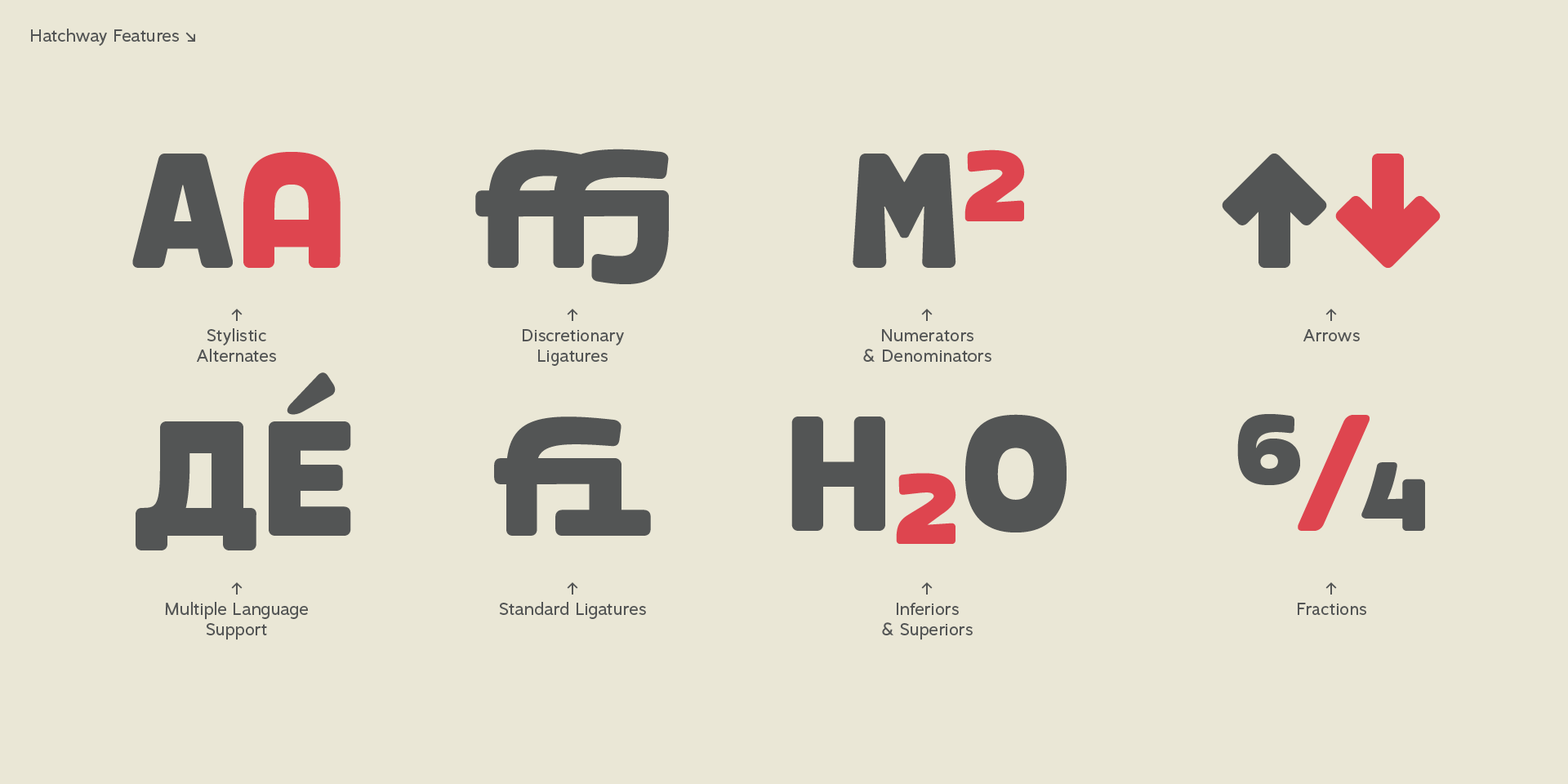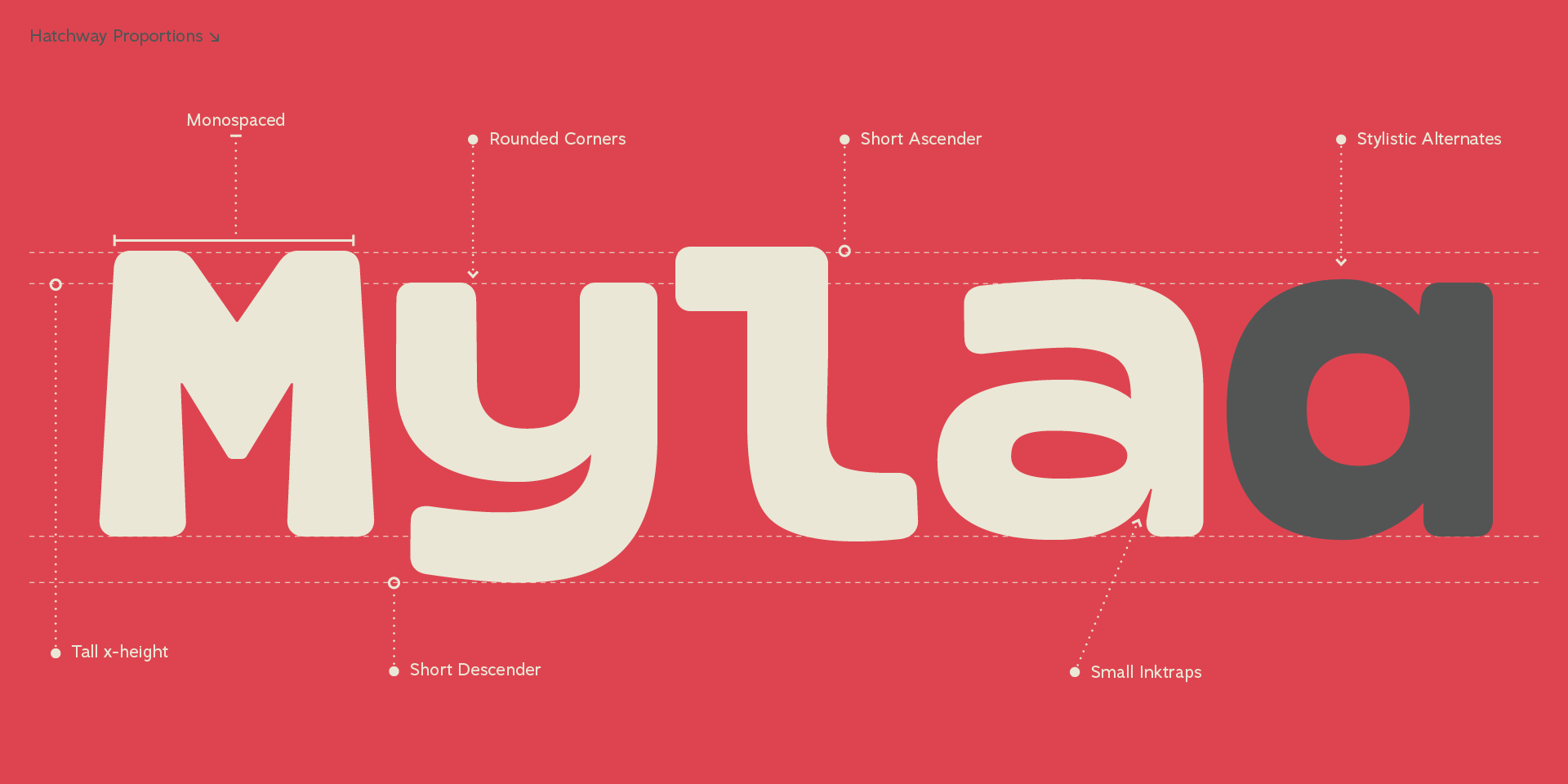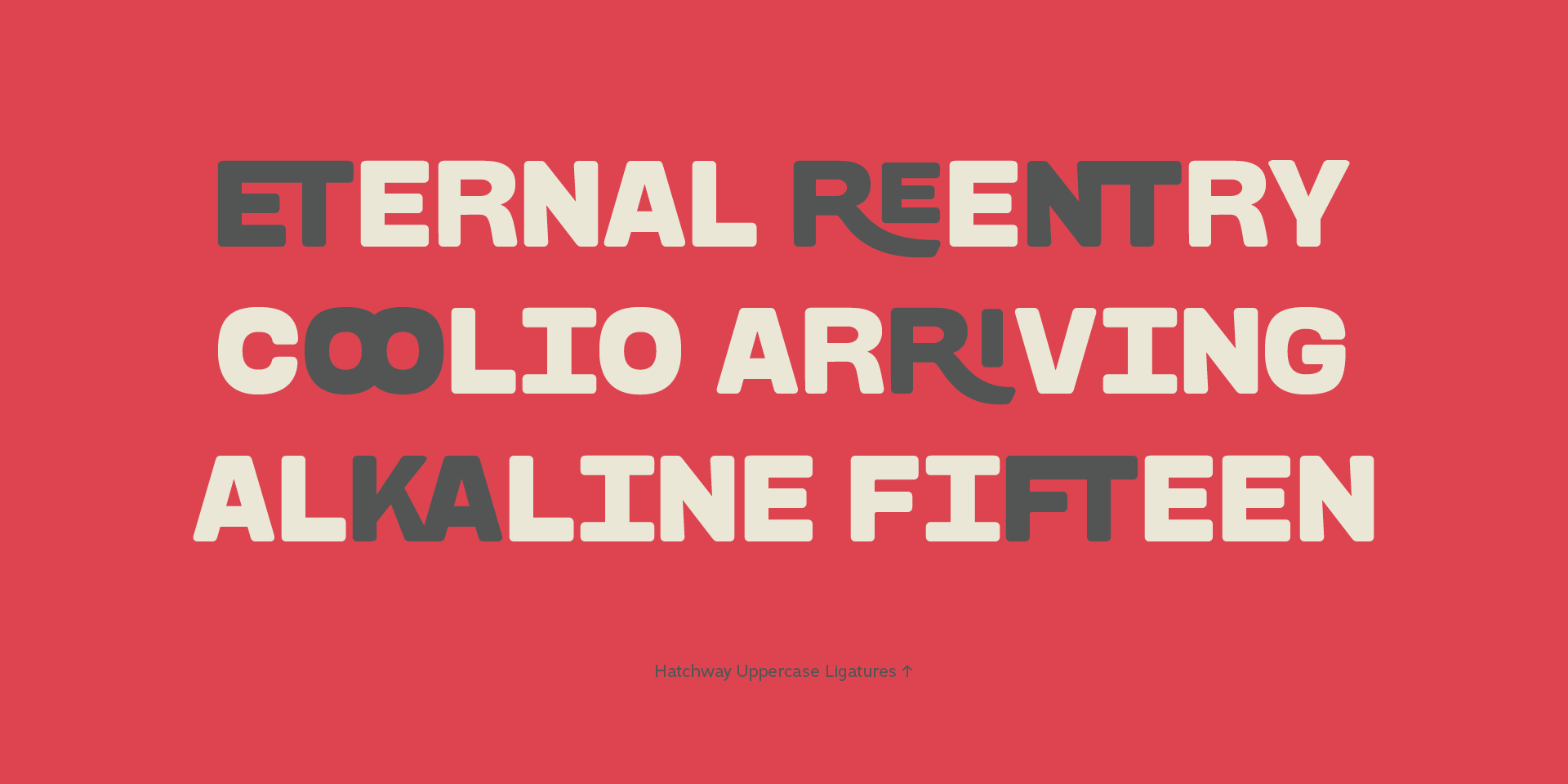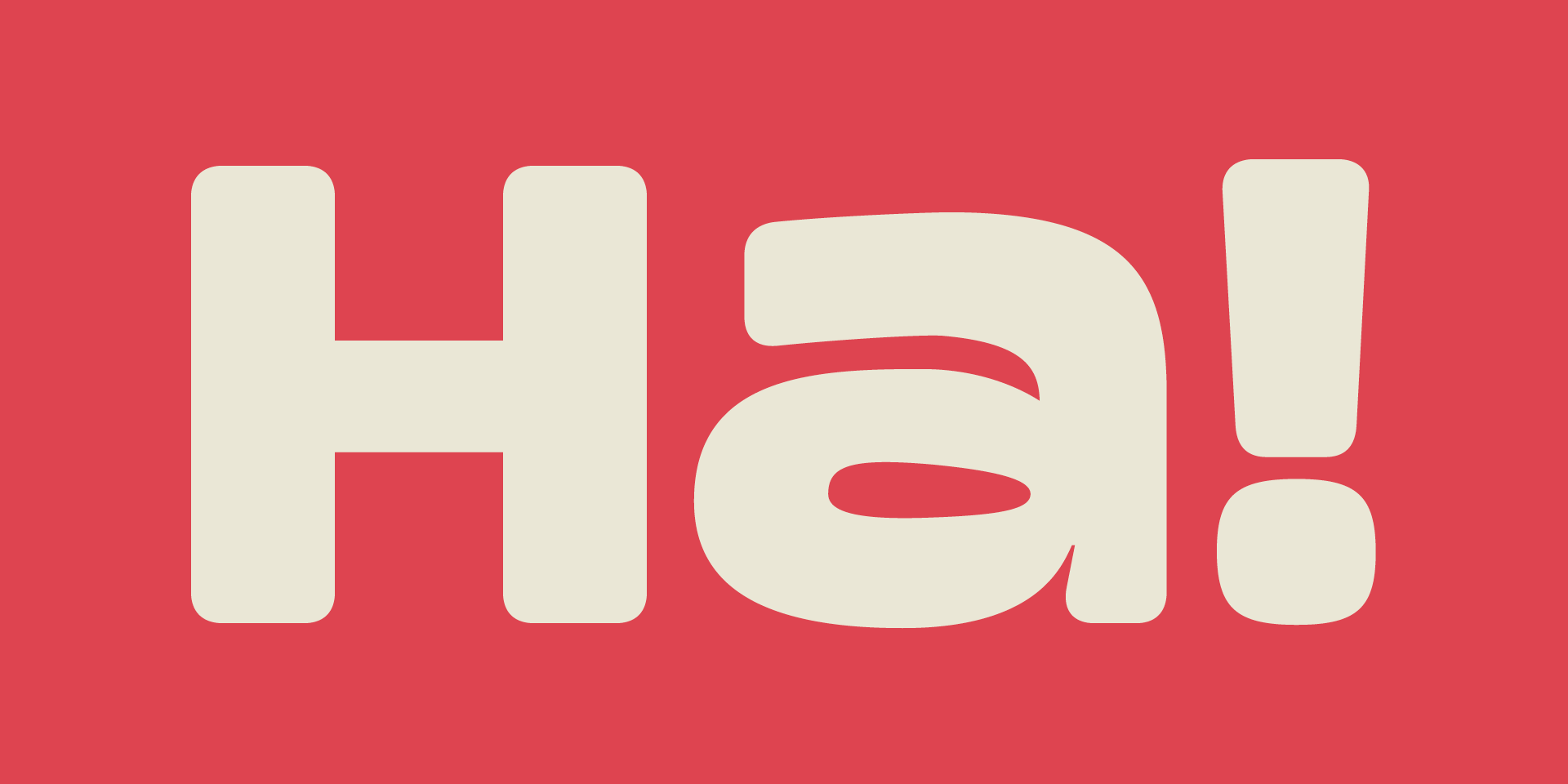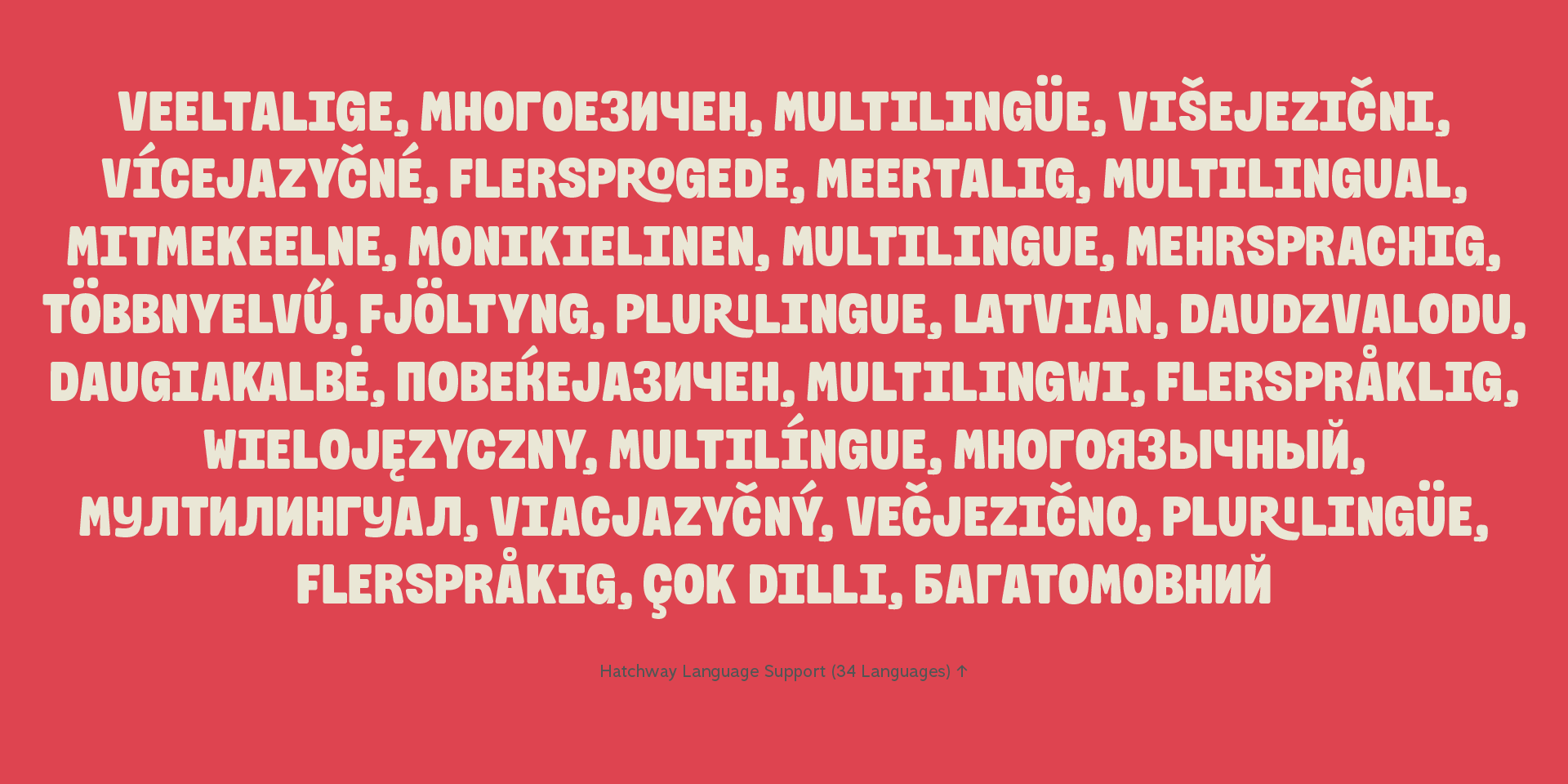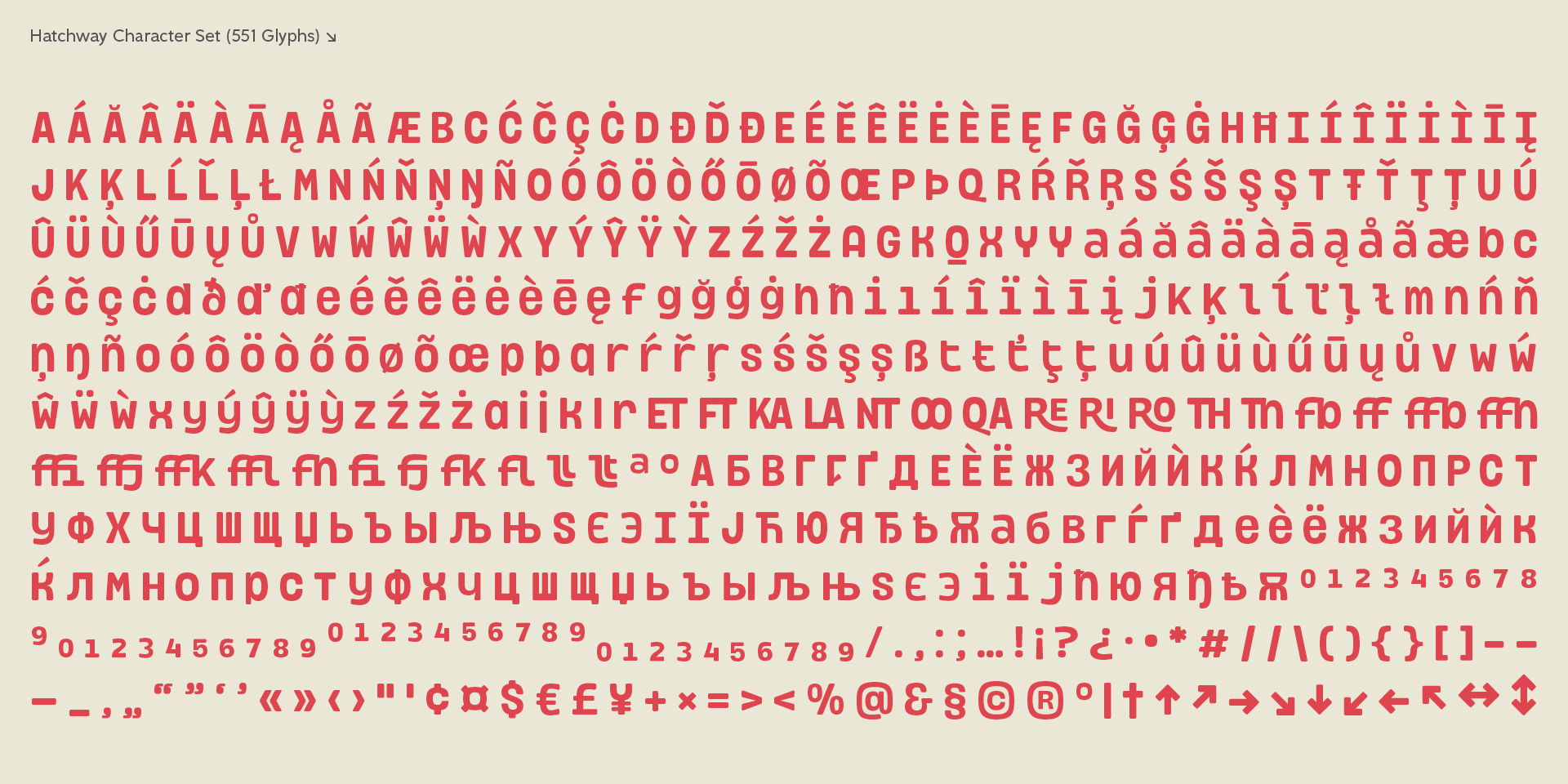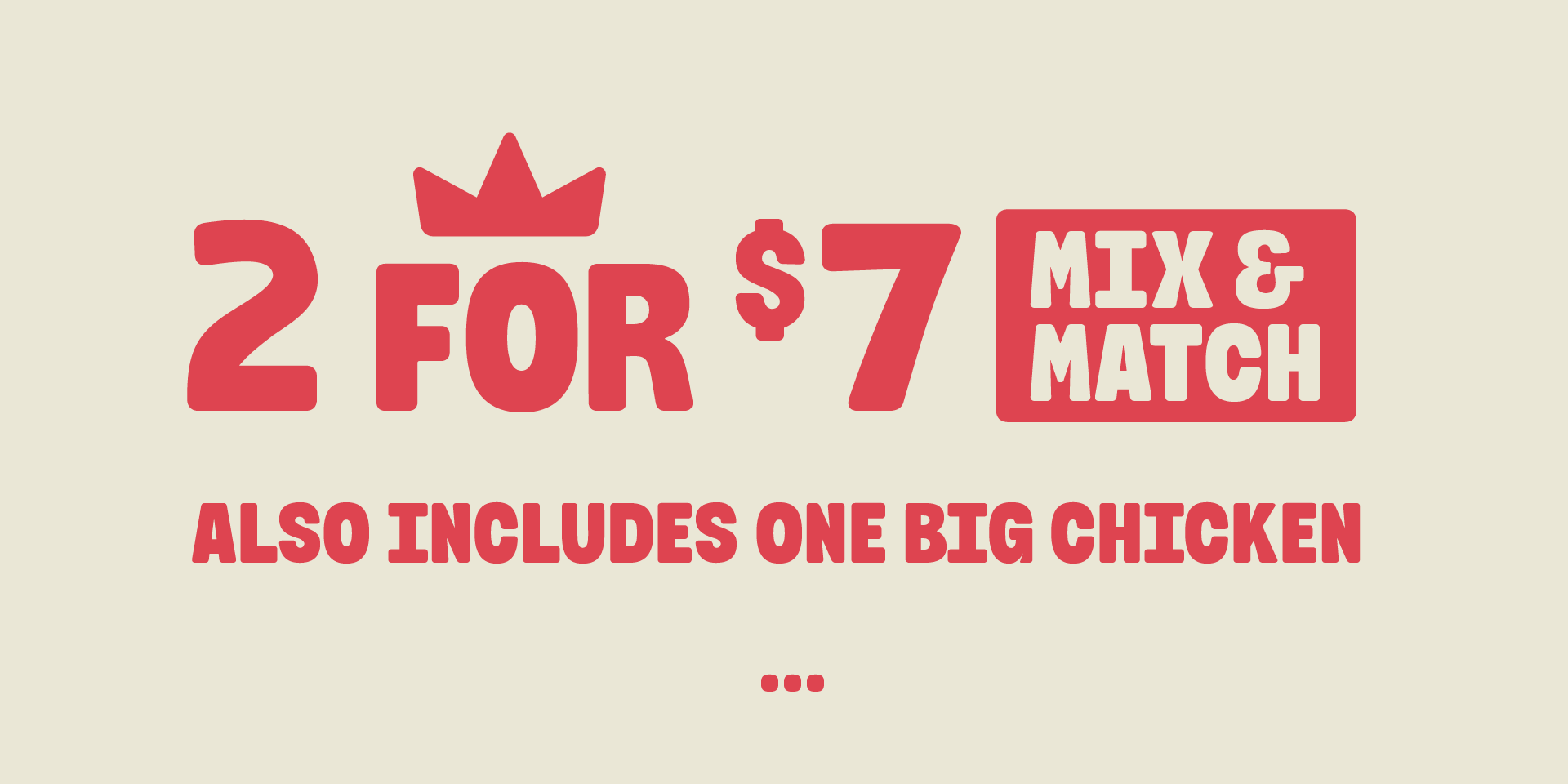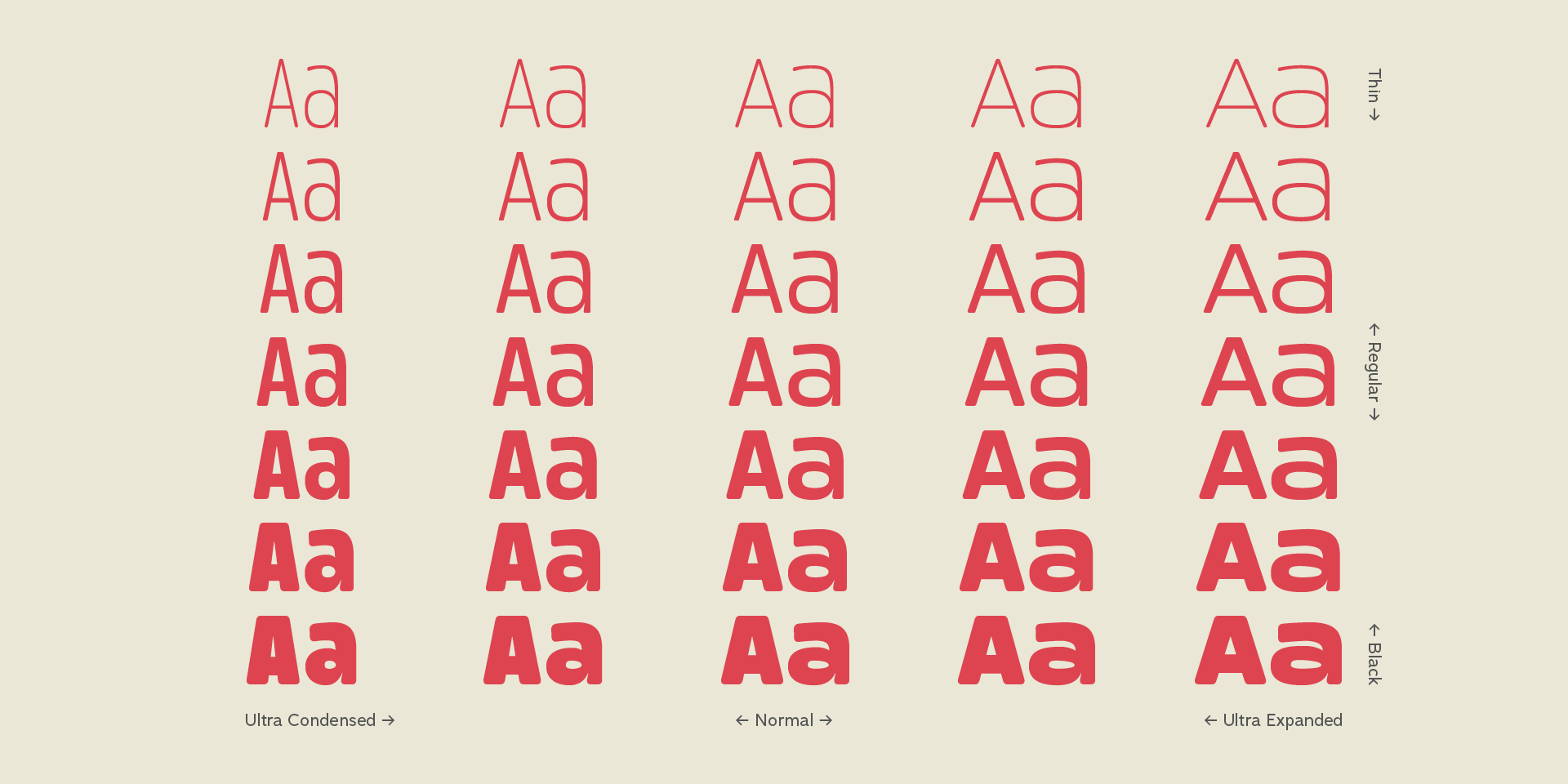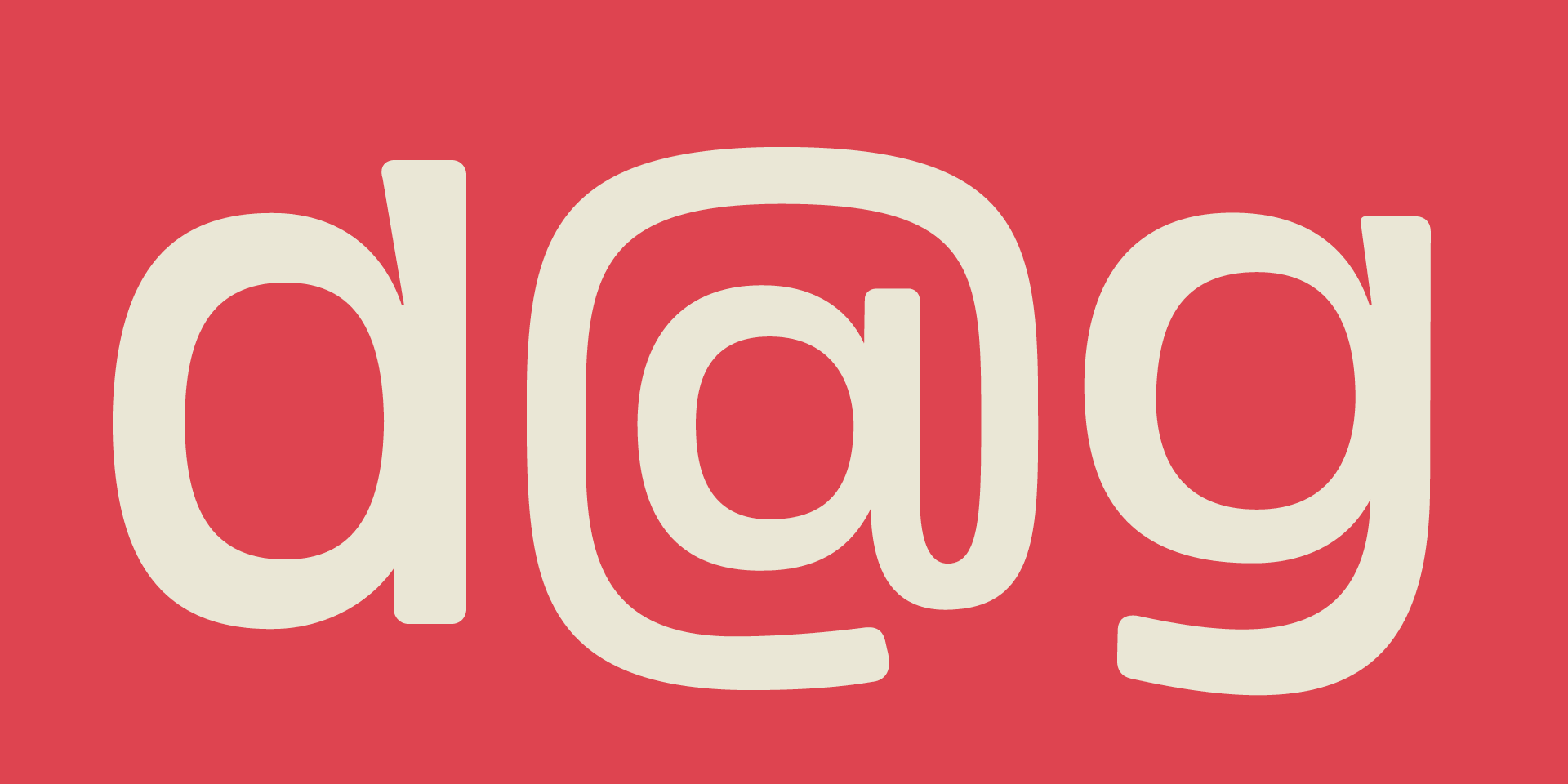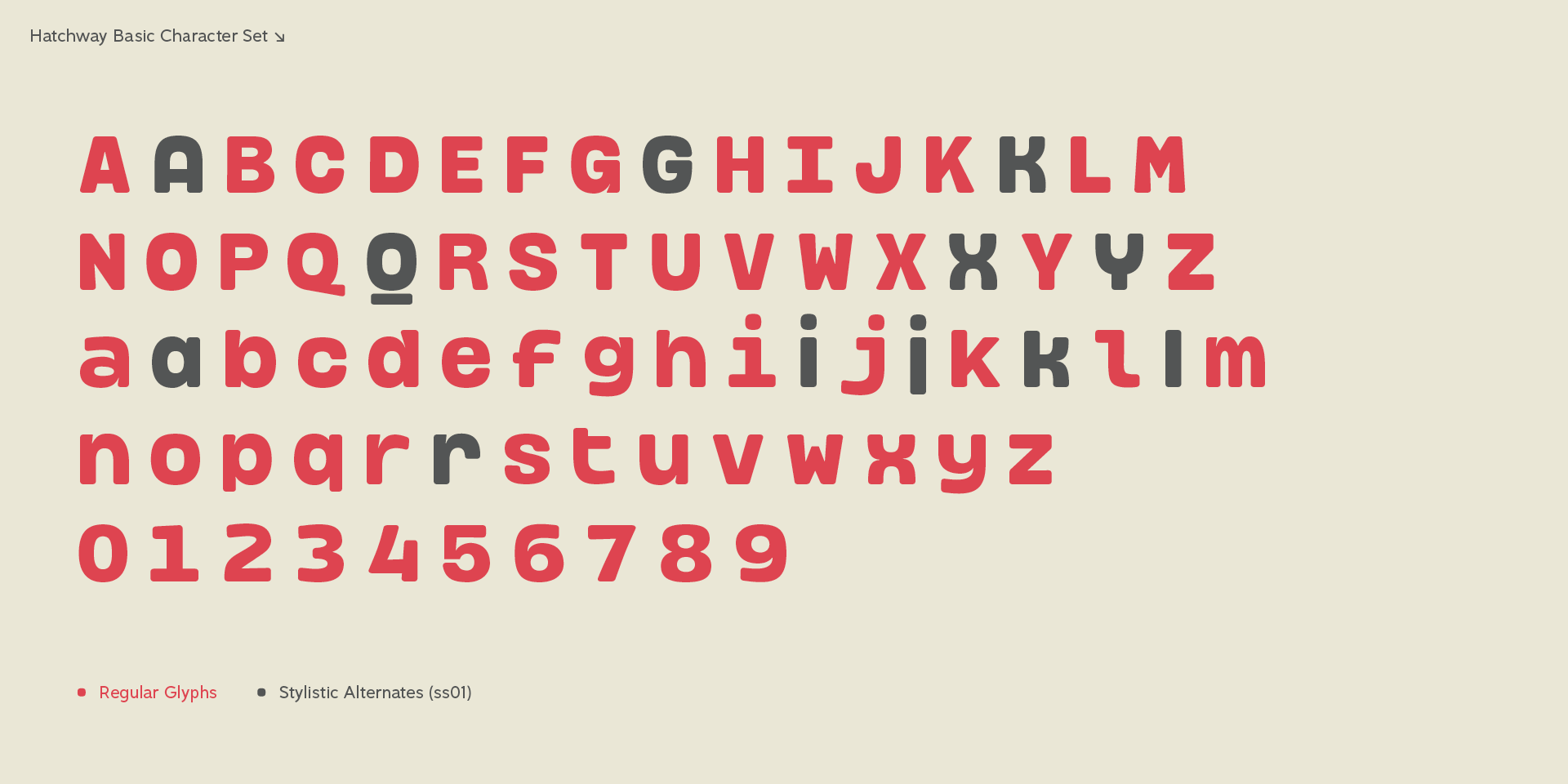
Hatchway Typefamily
Hatchway is a monospaced display typeface with rounded corners, suitable for headlines and short passages of text. Hatchway has a tall x-height and unusually short ascenders and descenders. The family contains seven weights from Thin to Black and five widths from Ultra Condensed to Ultra Extended. This version (1.0) comes with Multiple Language Support, including Extended Cyrillic, and Opentype Features.
Supported Languages: Afrikaans, Albanian, Bosnian, Bulgarian, Catalan, Croatian, Czech, Danish, Dutch, English, Estonian, Finnish, French, German, Hungarian, Icelandic, Italian, Latvian, Lithuanian, Macedonian, Maltese, Norwegian, Polish, Portuguese, Romanian, Russian, Serbian, Slovak, Slovenian, Spanish, Swedish, Turkish, Ukrainian and Zulu
Opentype Features: Standard Ligatures, Discretionary Ligatures, Stylistic Alternates, Fractions, Superscript and Ordinal Figures, Localised Forms, Superscript, Subscript.